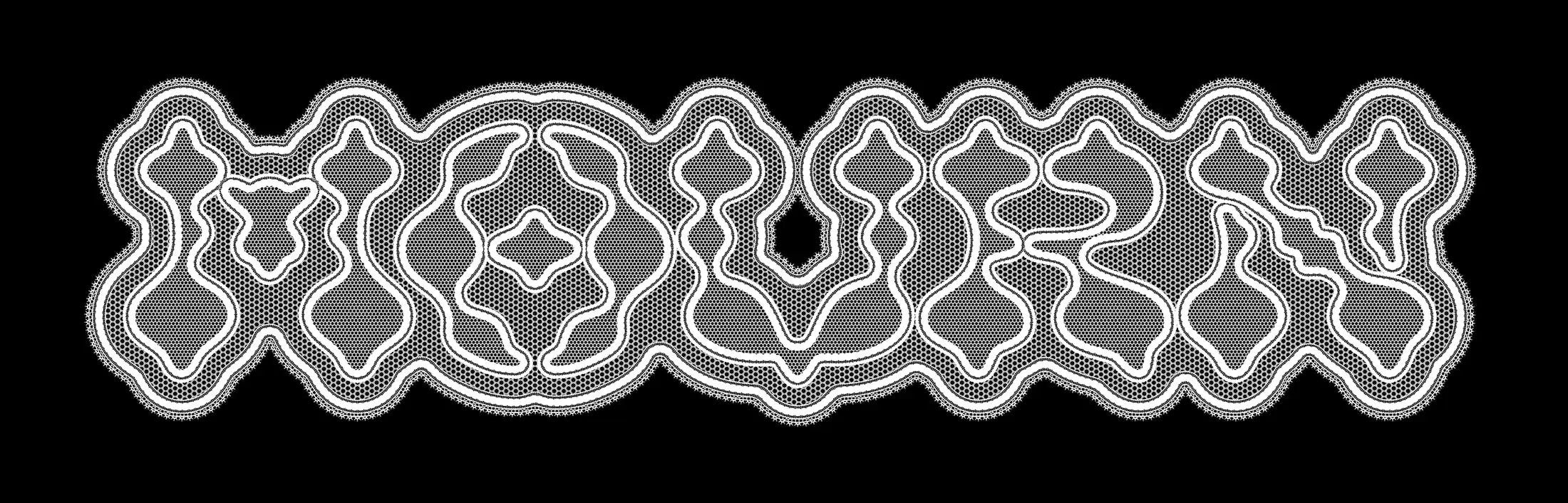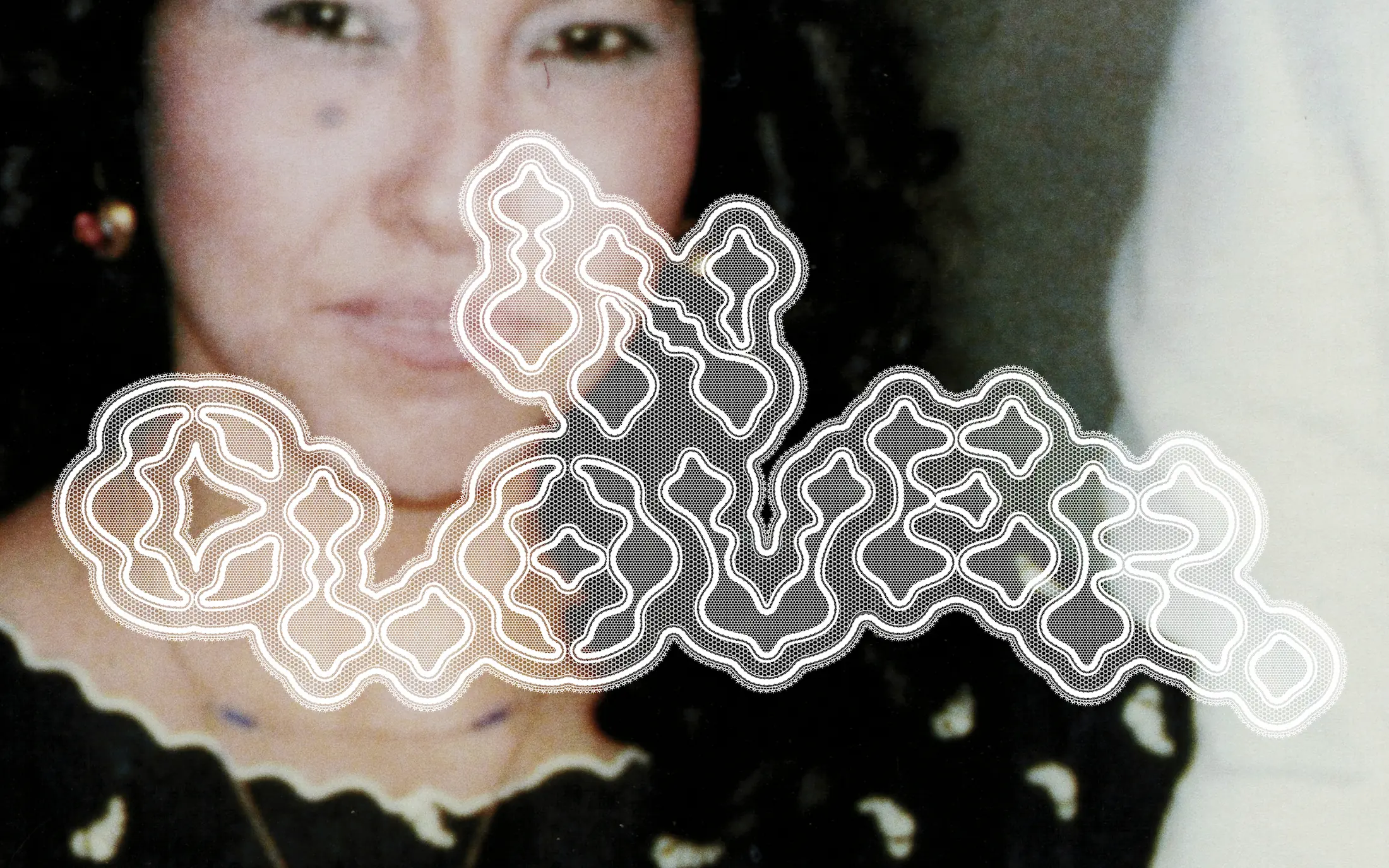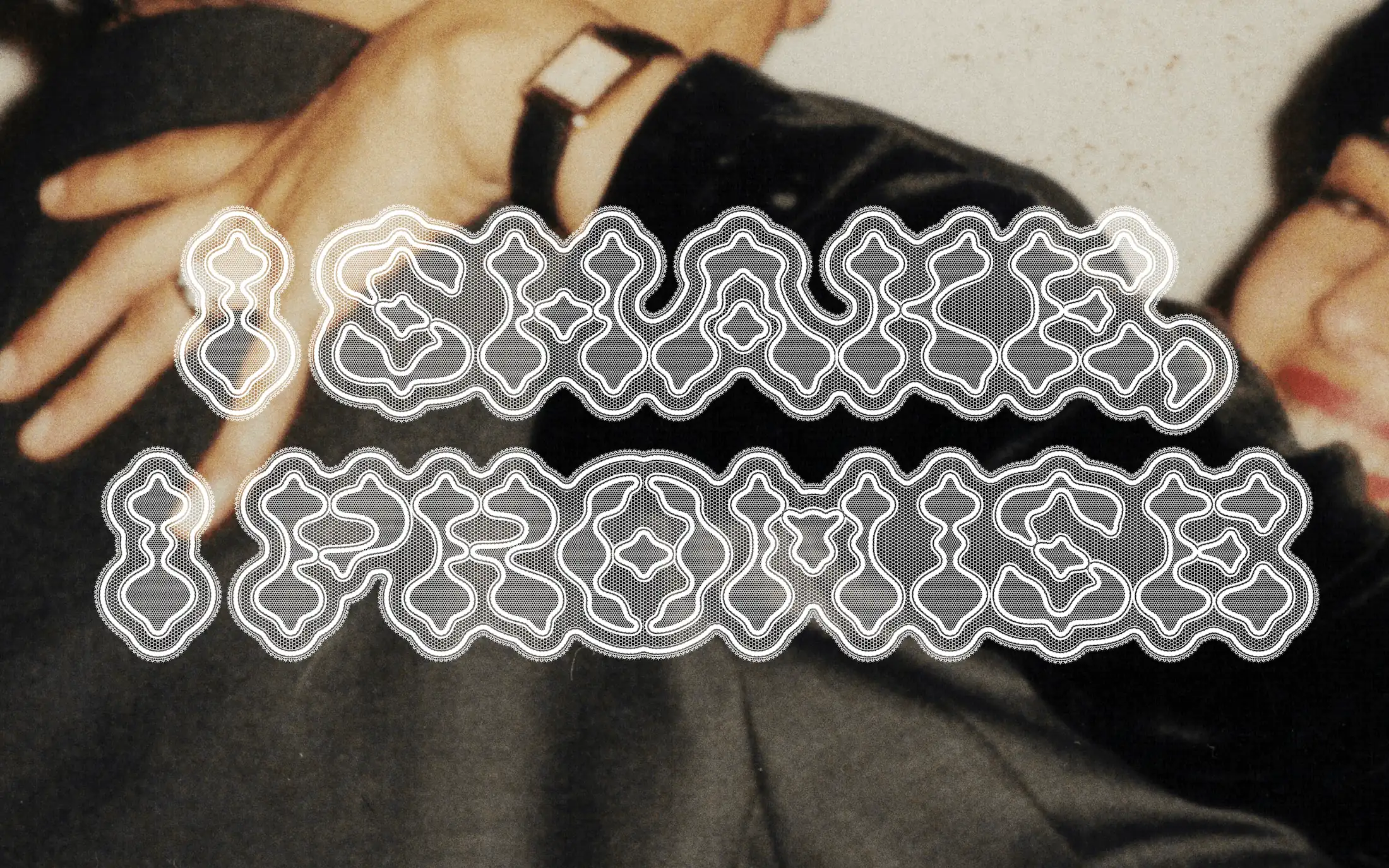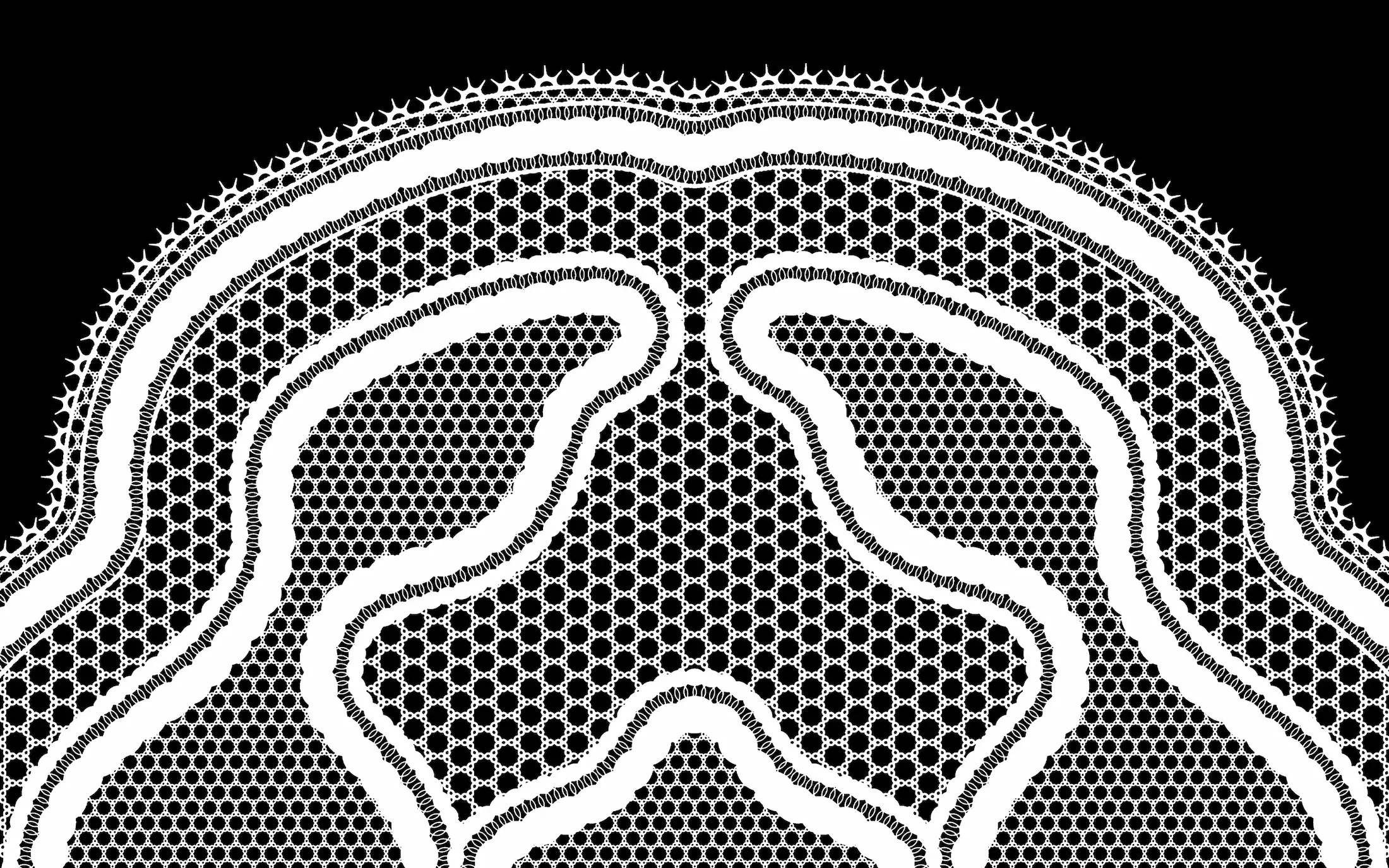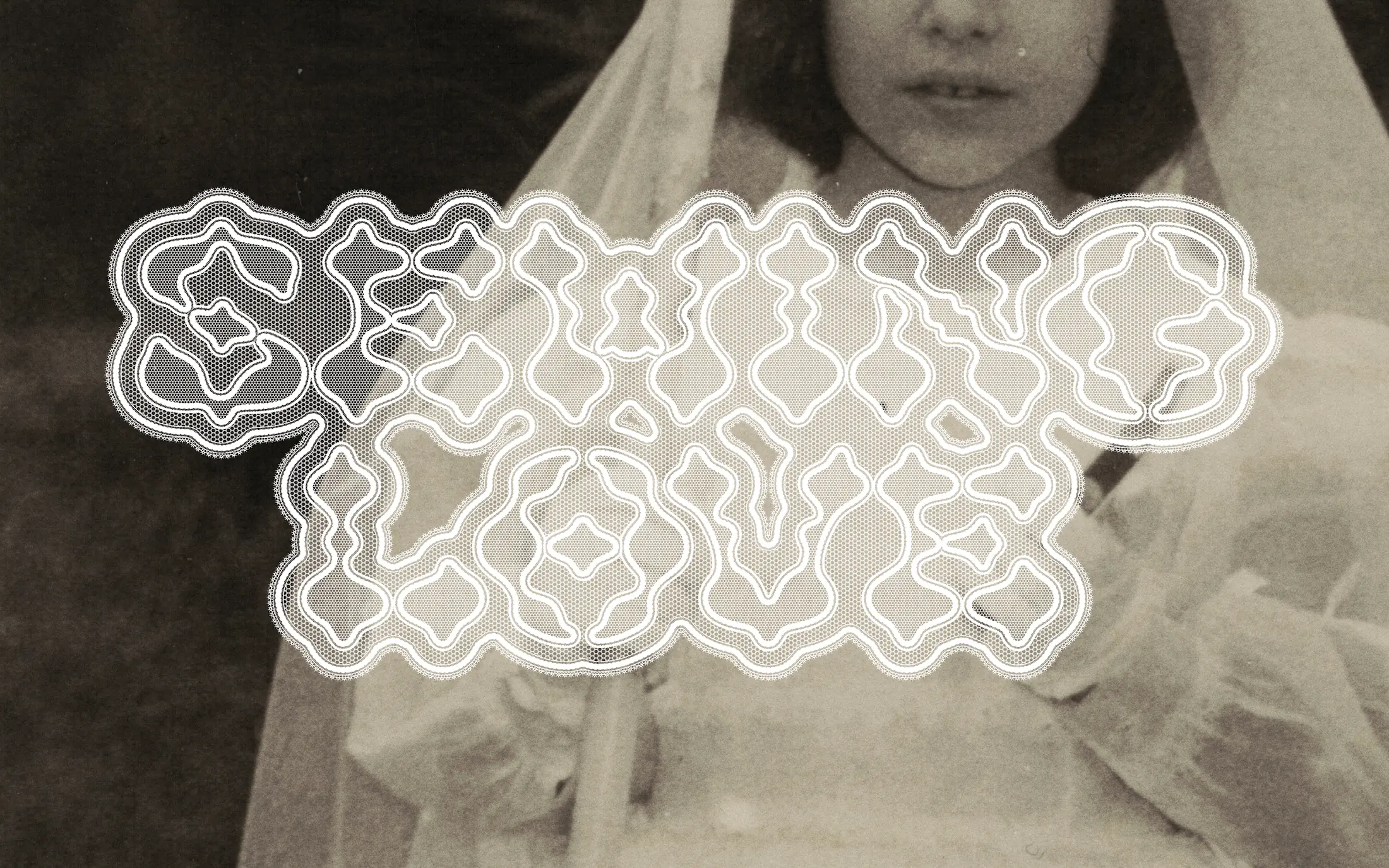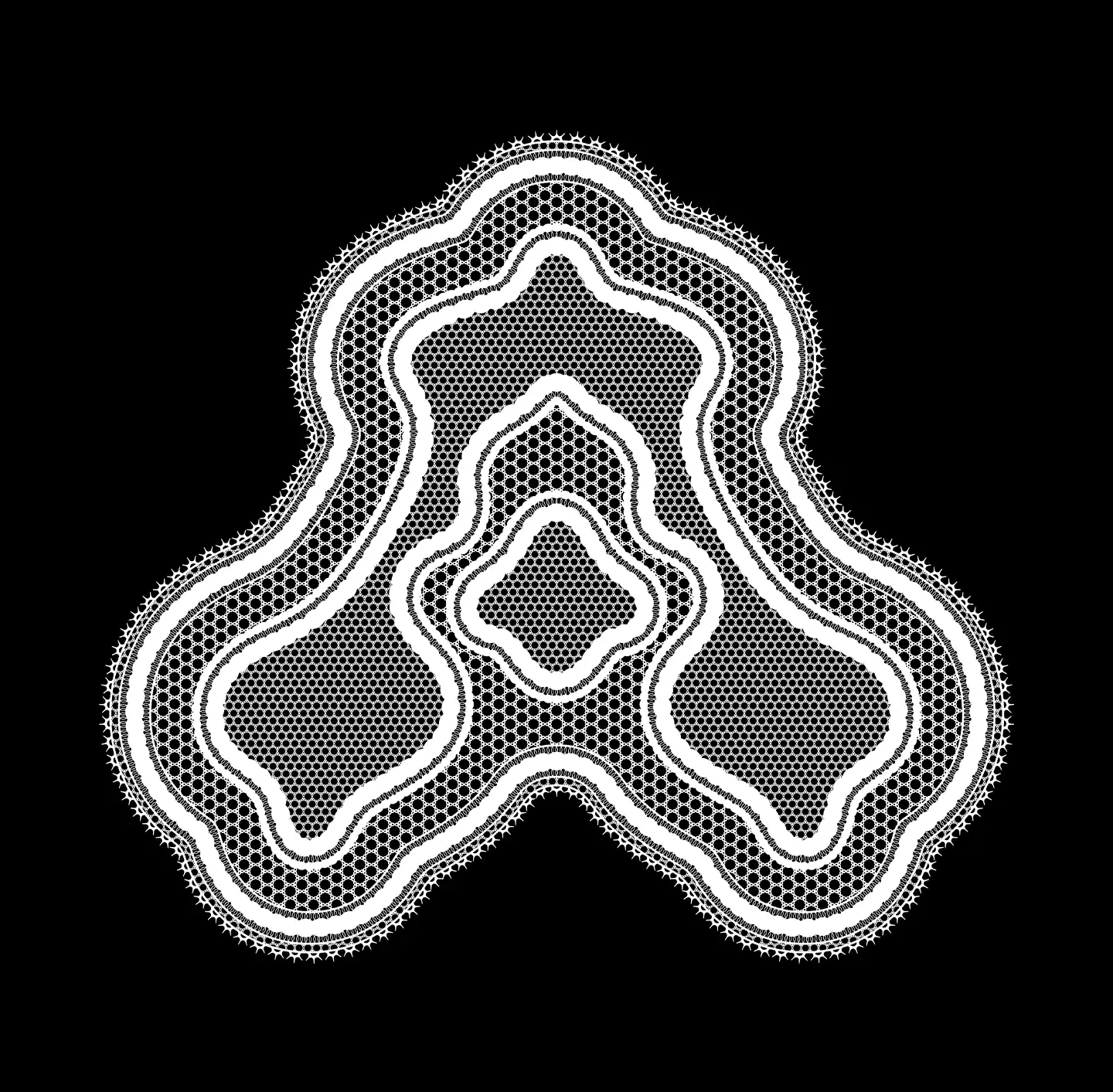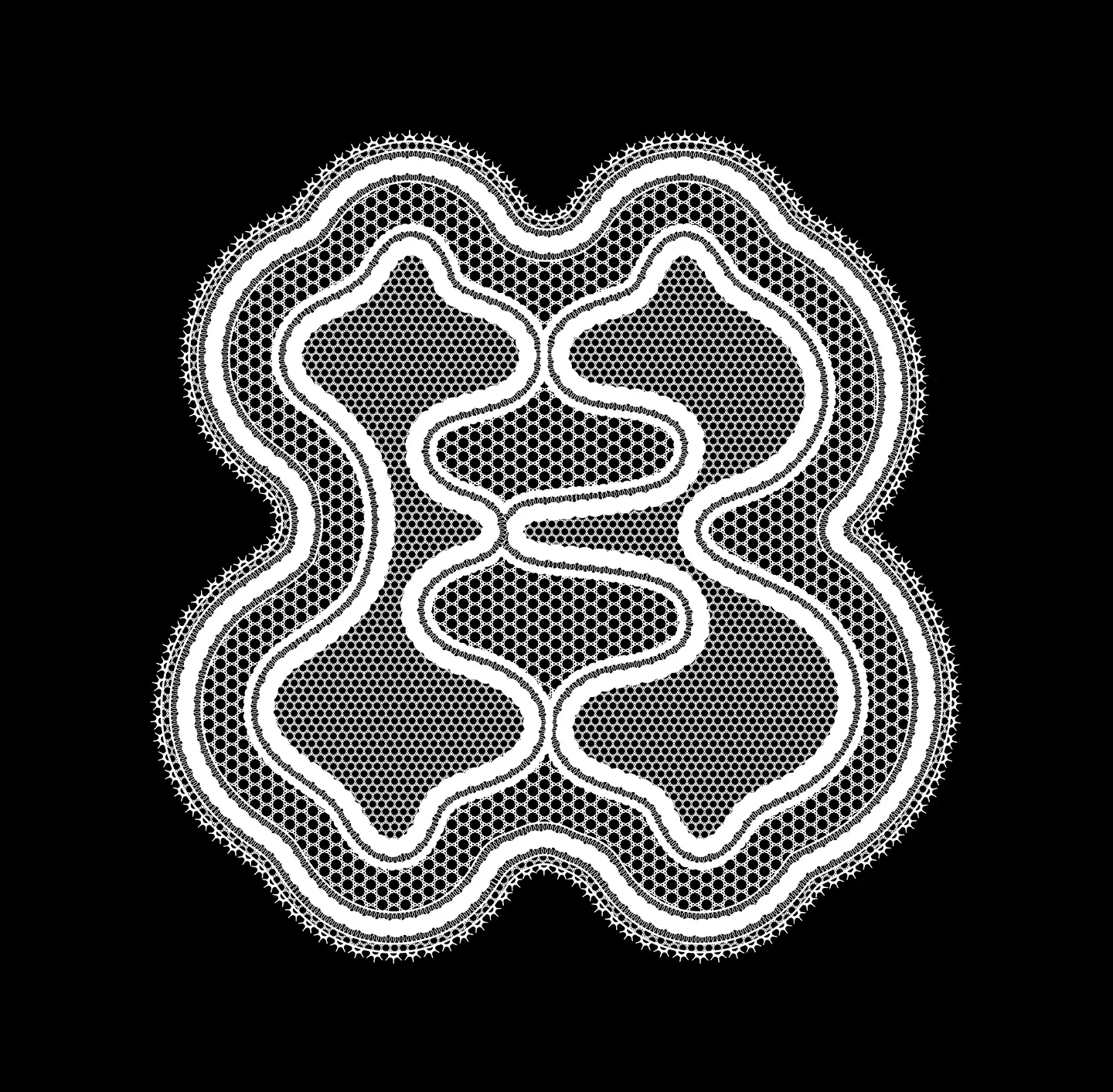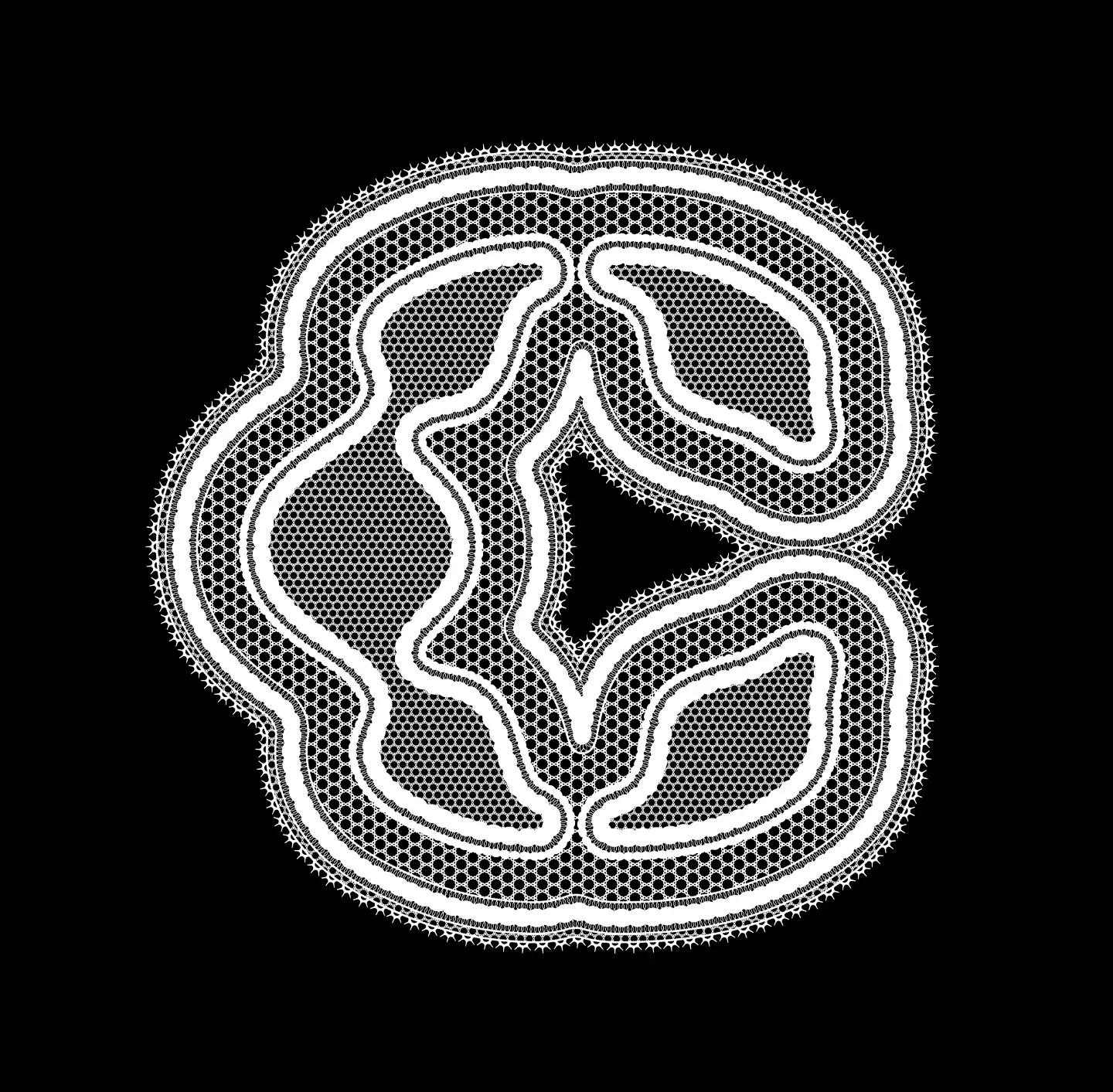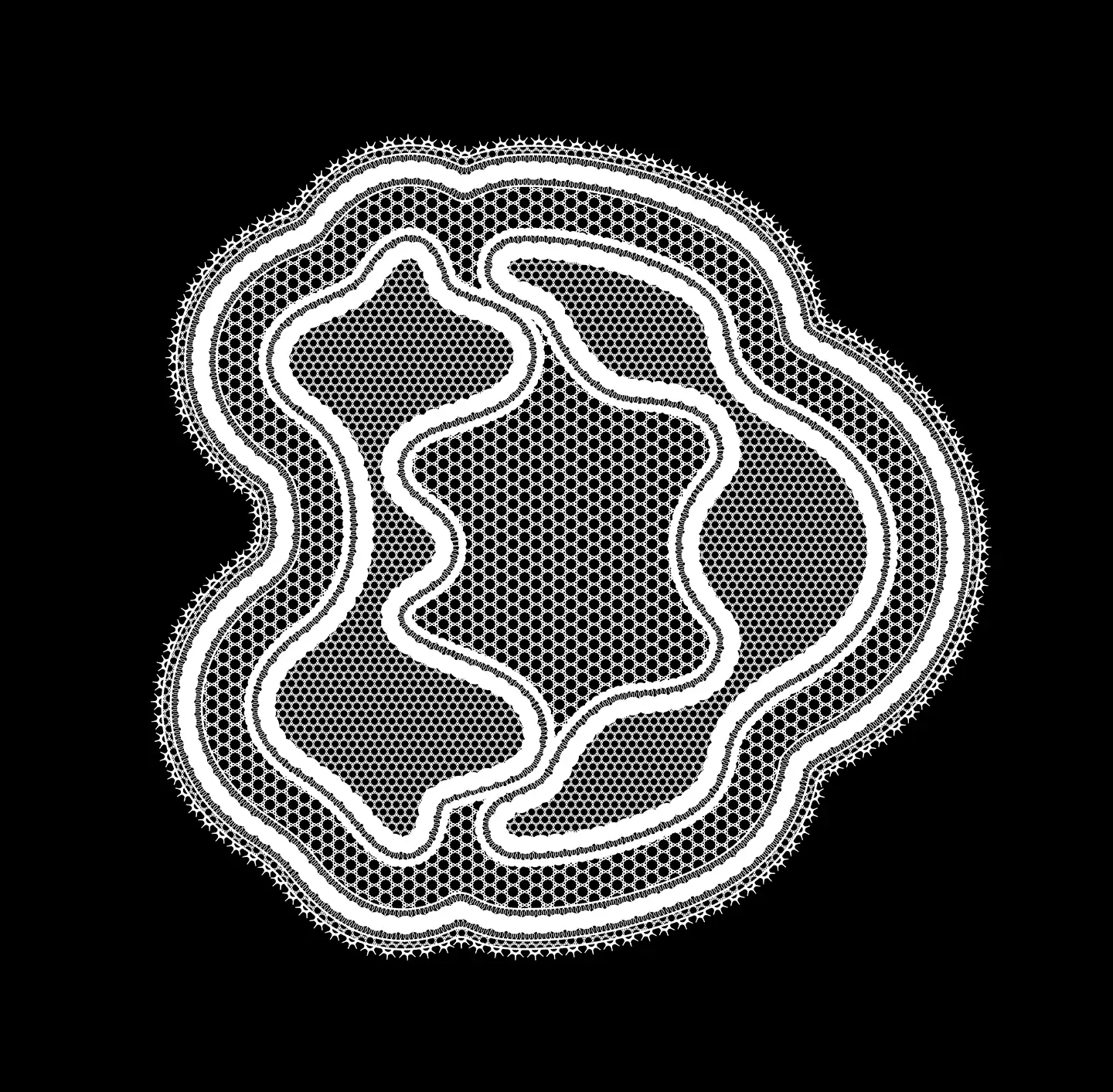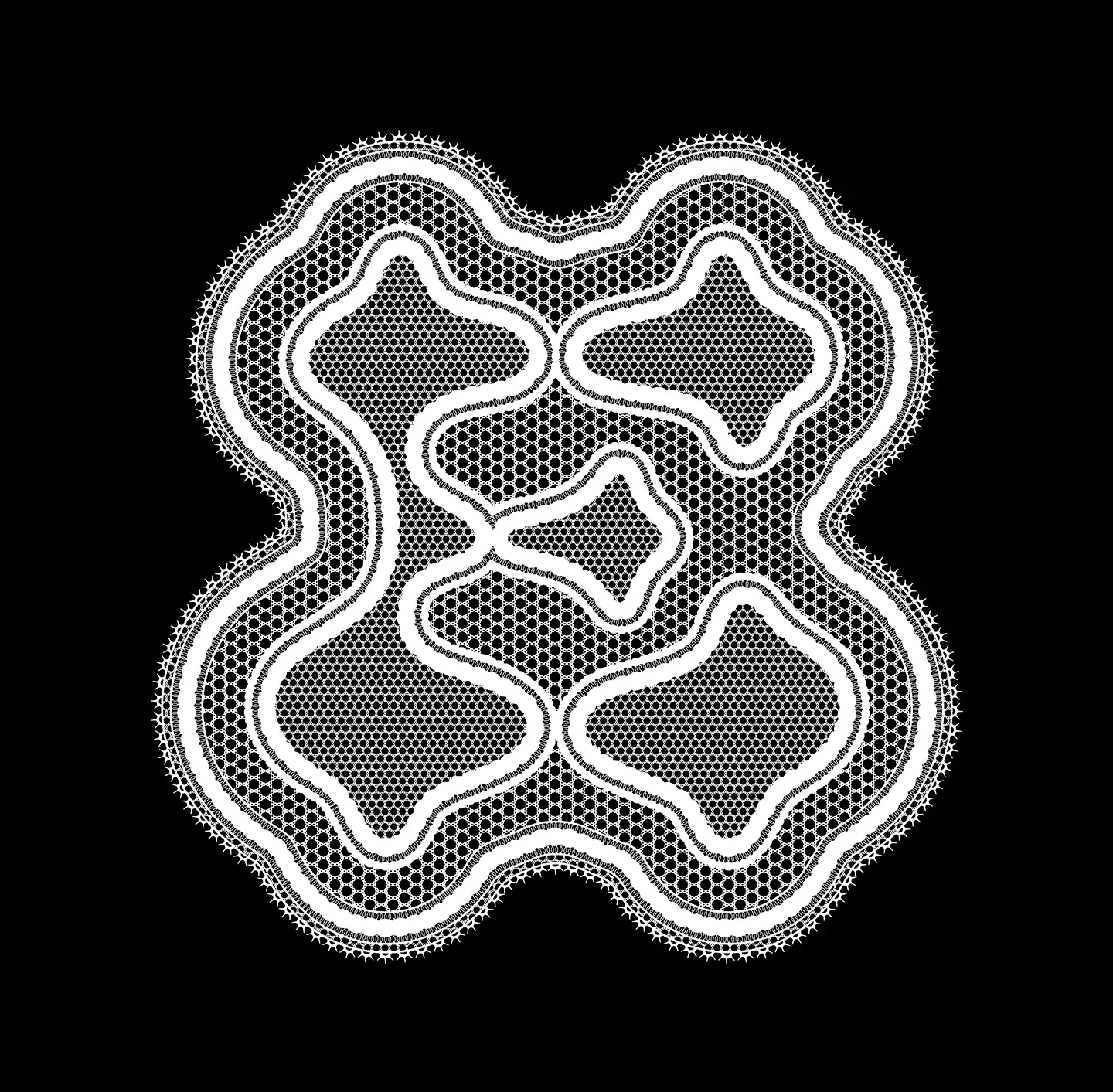
Weaved from memory, mutation and message. Mourn is a display typeface inspired by the work of bobbin lace artisans around the world, with layers of patterns that mimic intersecting threads. Taking the intricate designs that normally decorate the edges of a lace piece, and using them as building blocks to draw out each character's silhouette.
A labor of love, designed and printed in Monterrey, México. The Mourn Specimen includes full color spreads and full bleed printed black backgrounds for a total of 48 pages in textured archival paper.